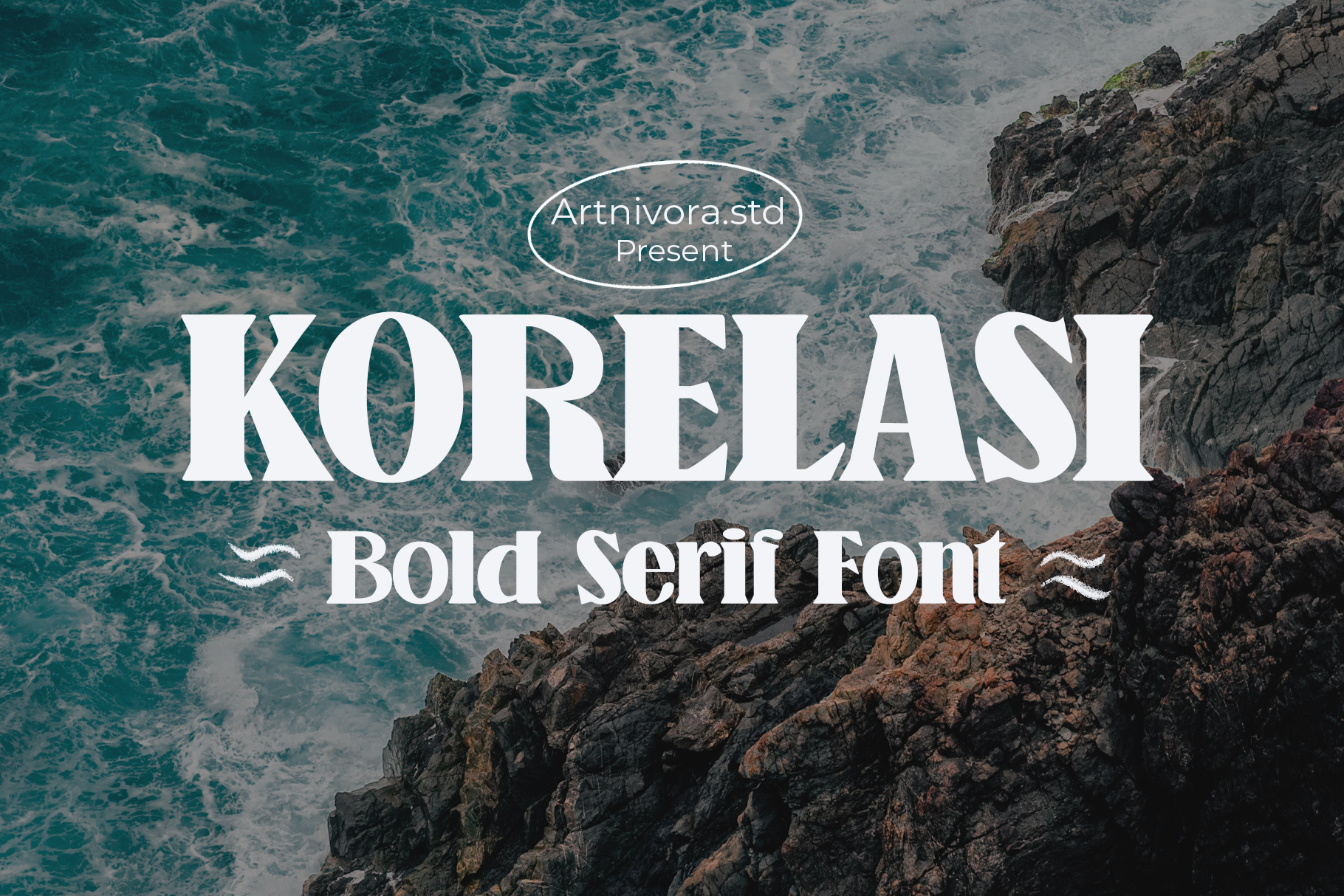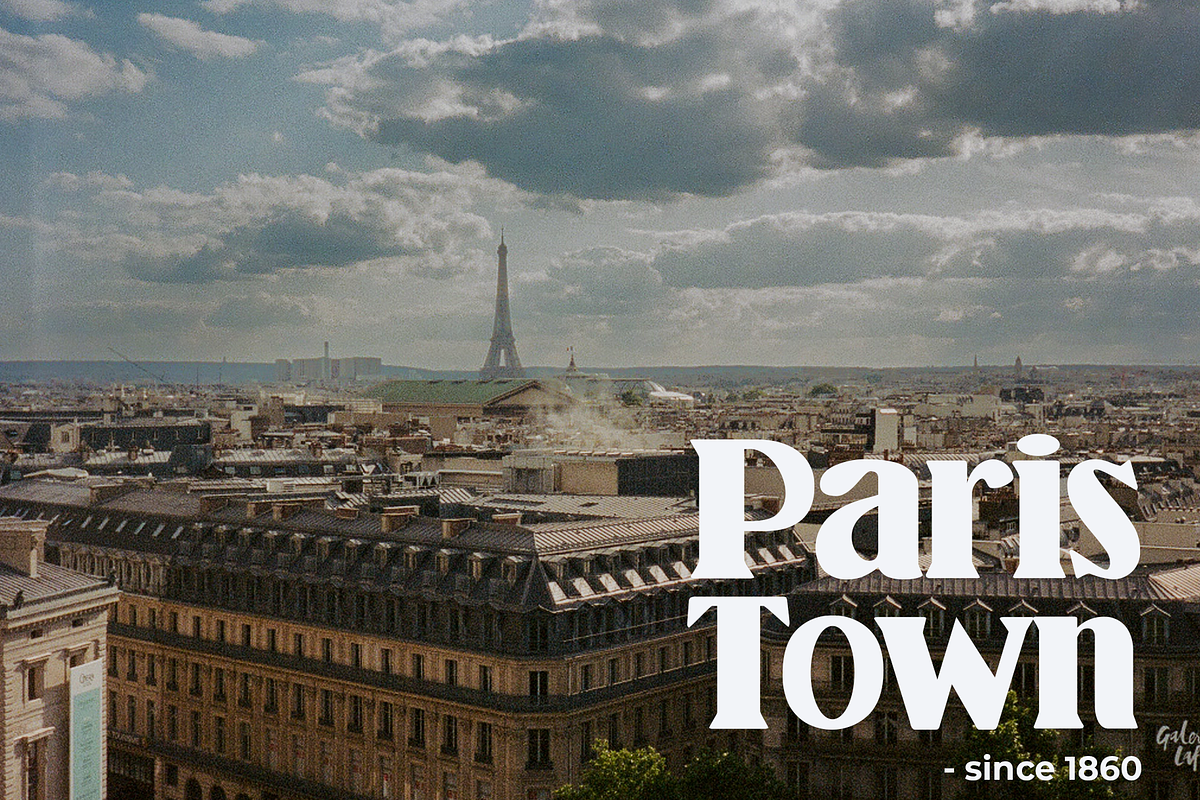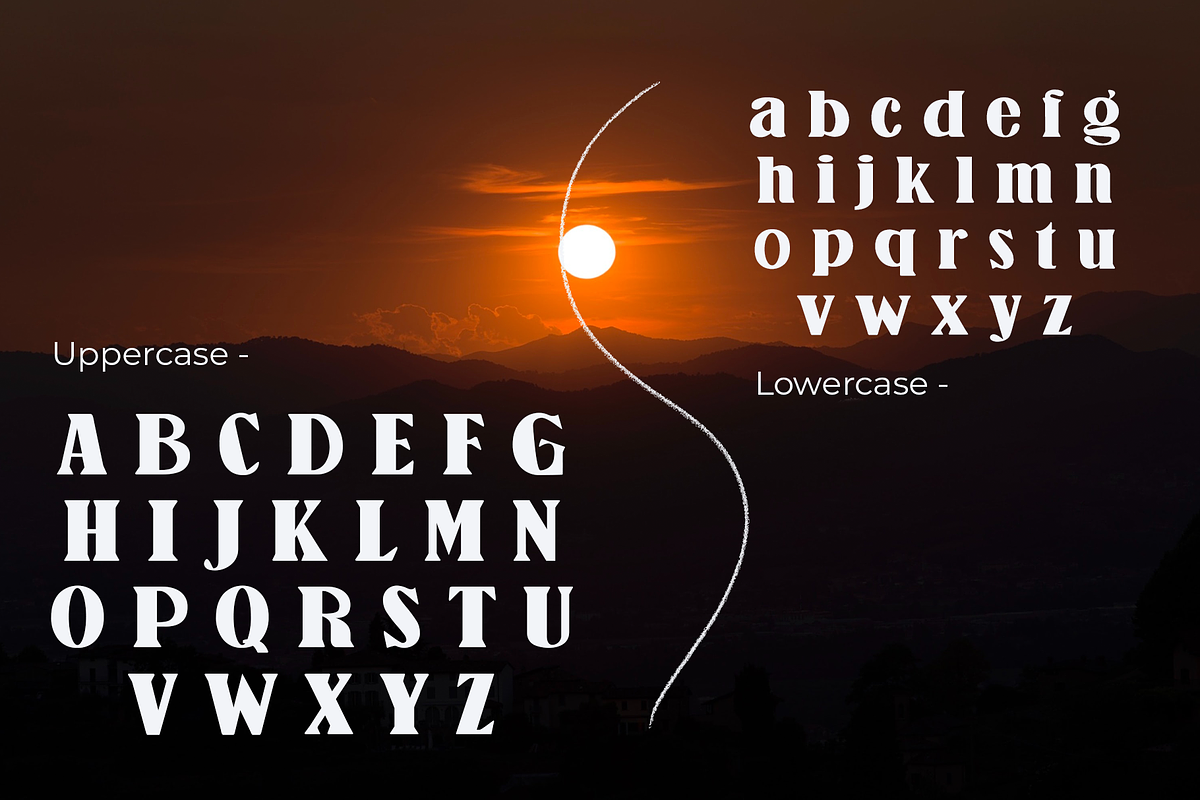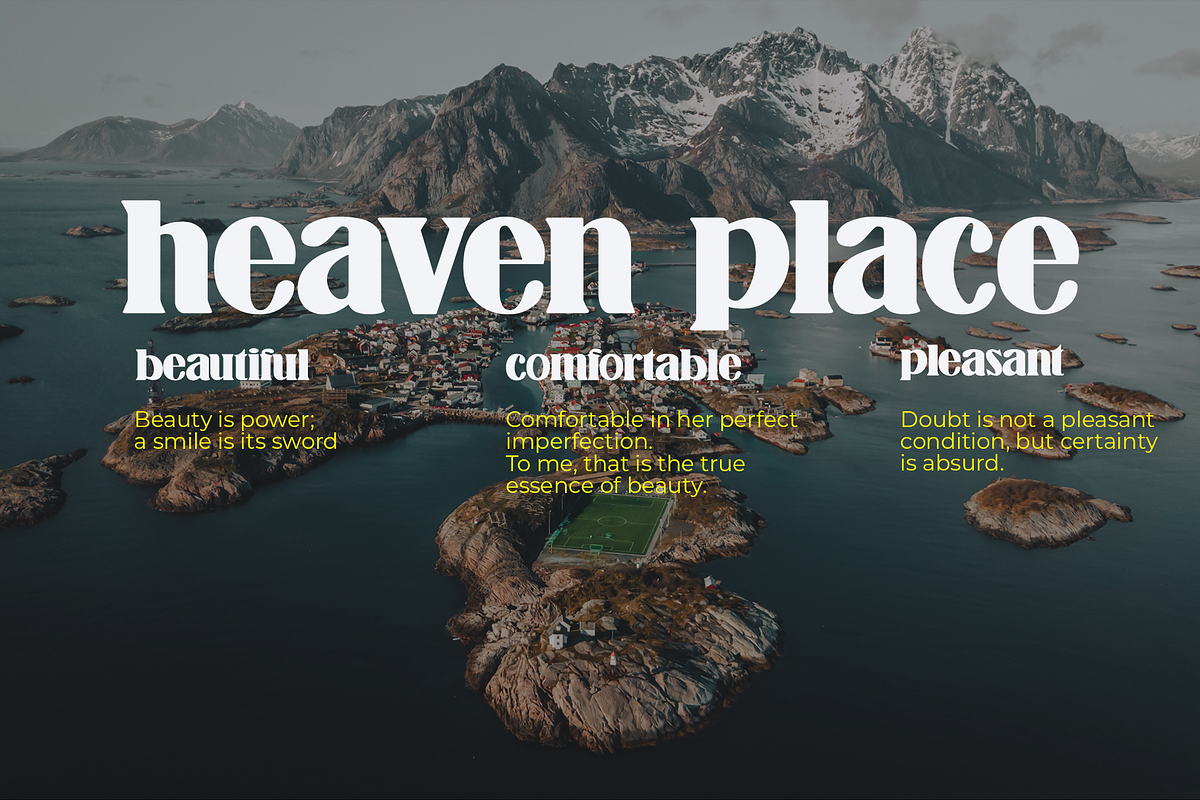
Korelasi - Bold Serif Font
Introducing Korelasi, an elegant, simple, and beauty serif font. Its unique and lovely feel. So perfect for you who needs a typeface for logo designs, magazine, social media, brochure, and many more.